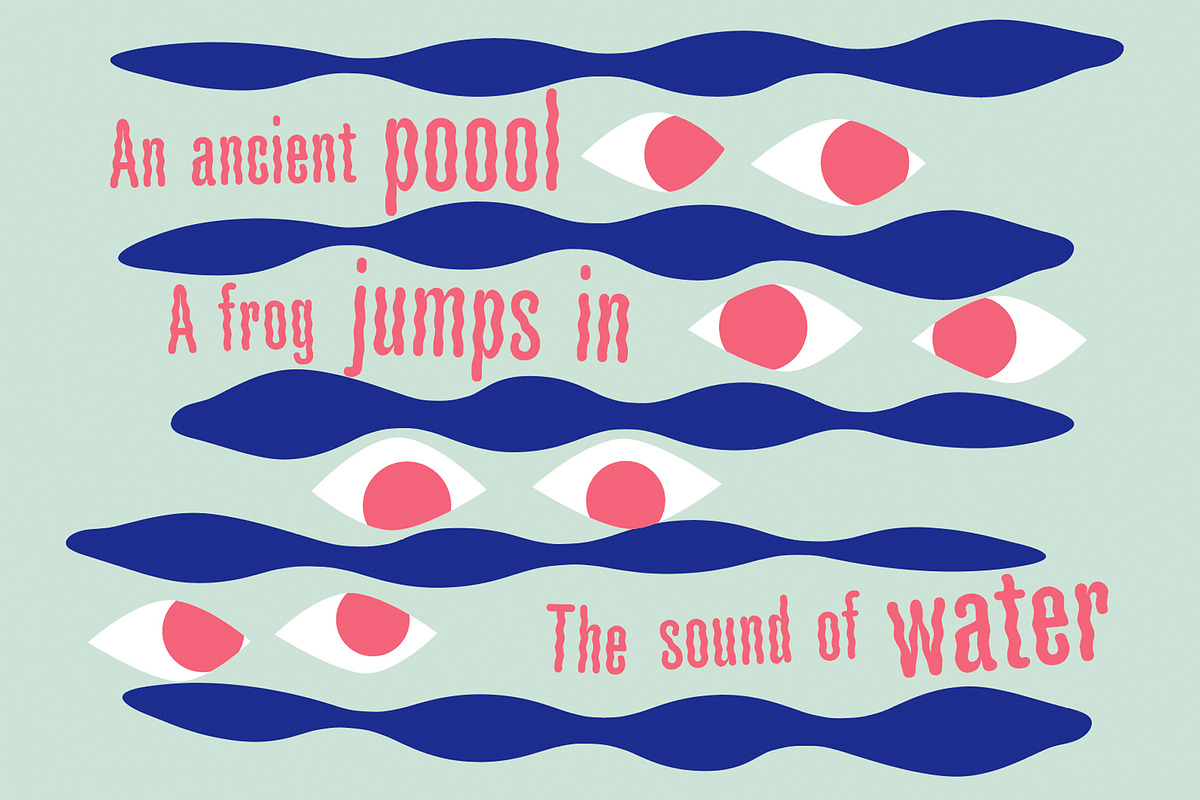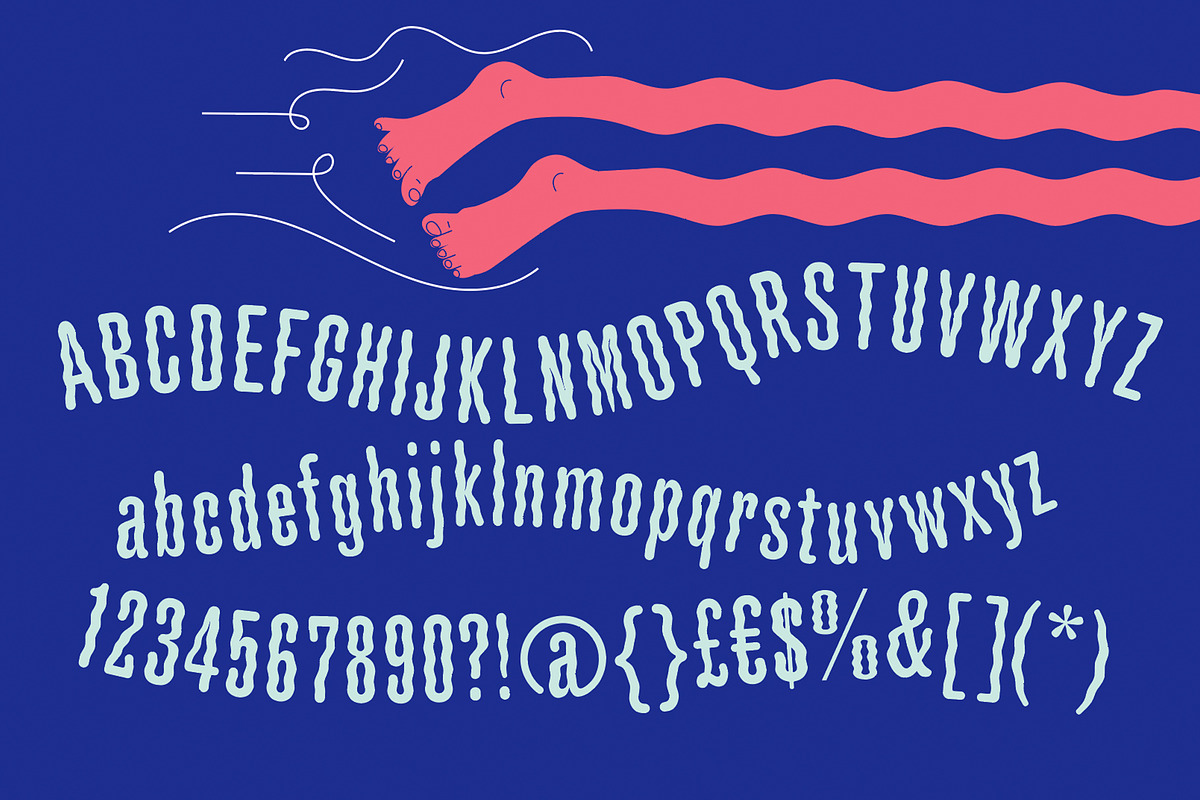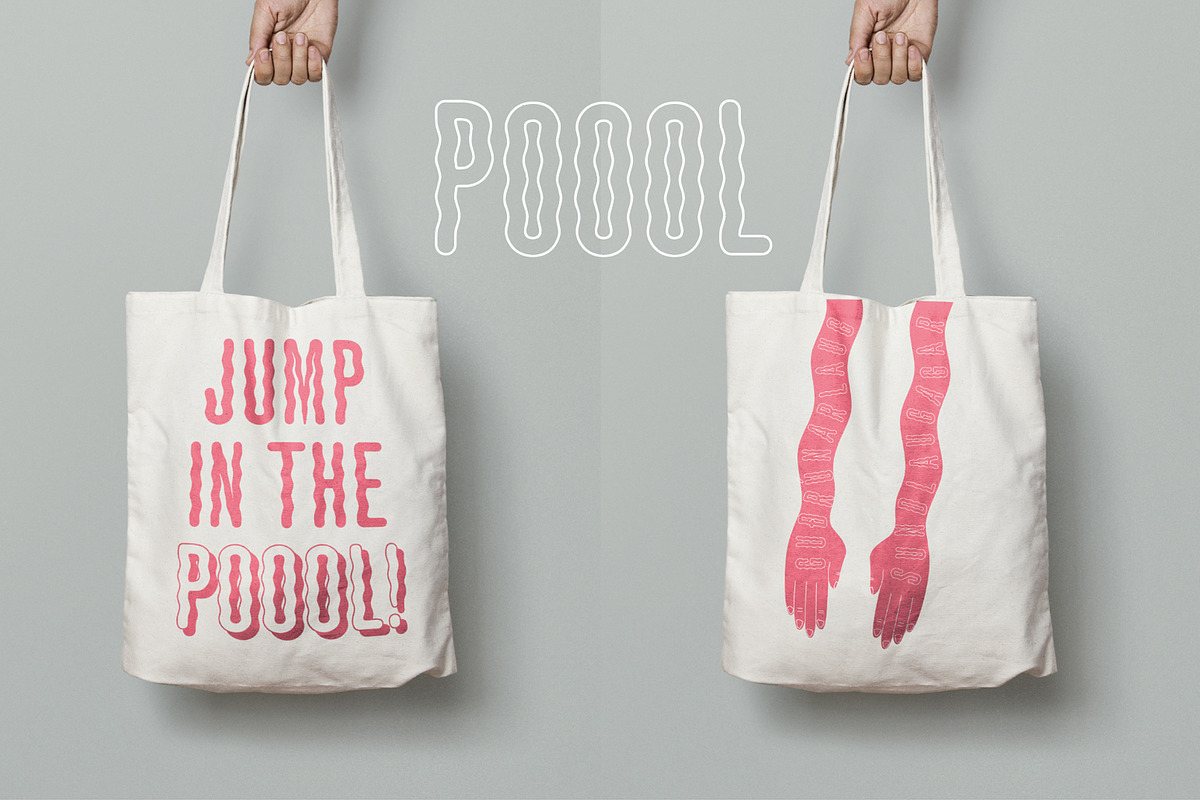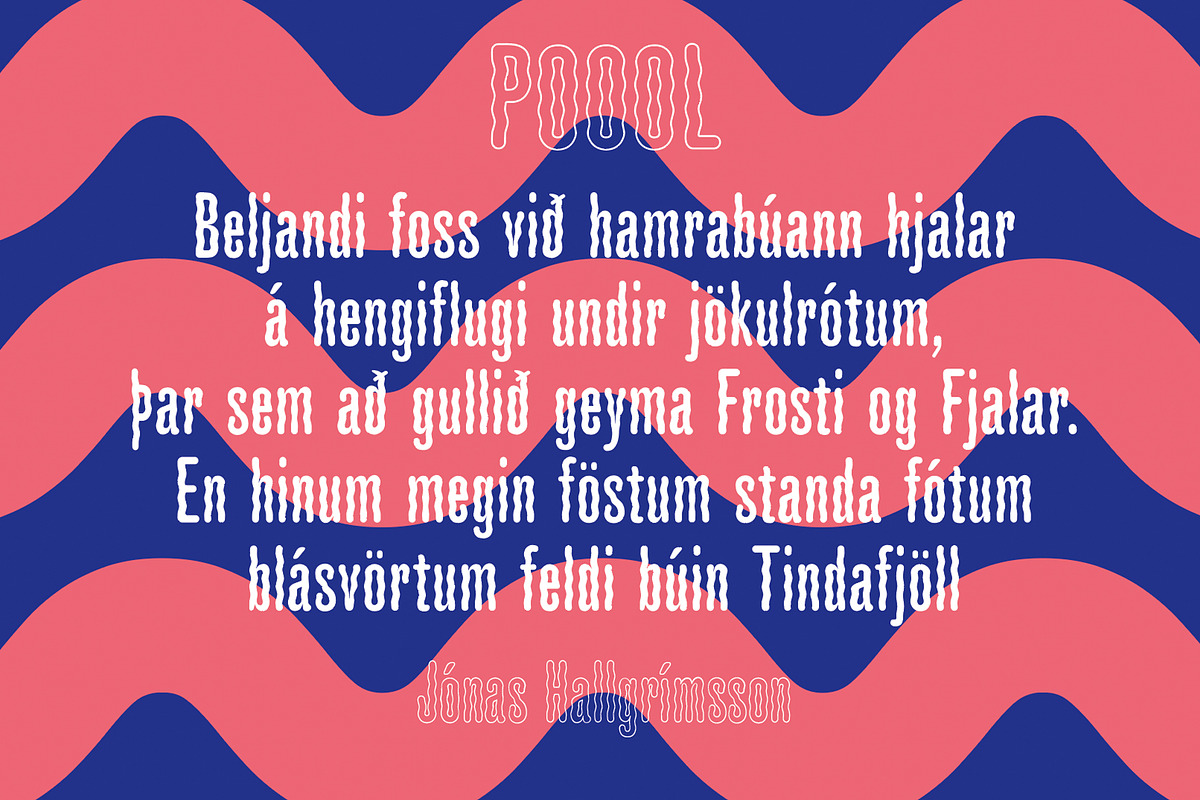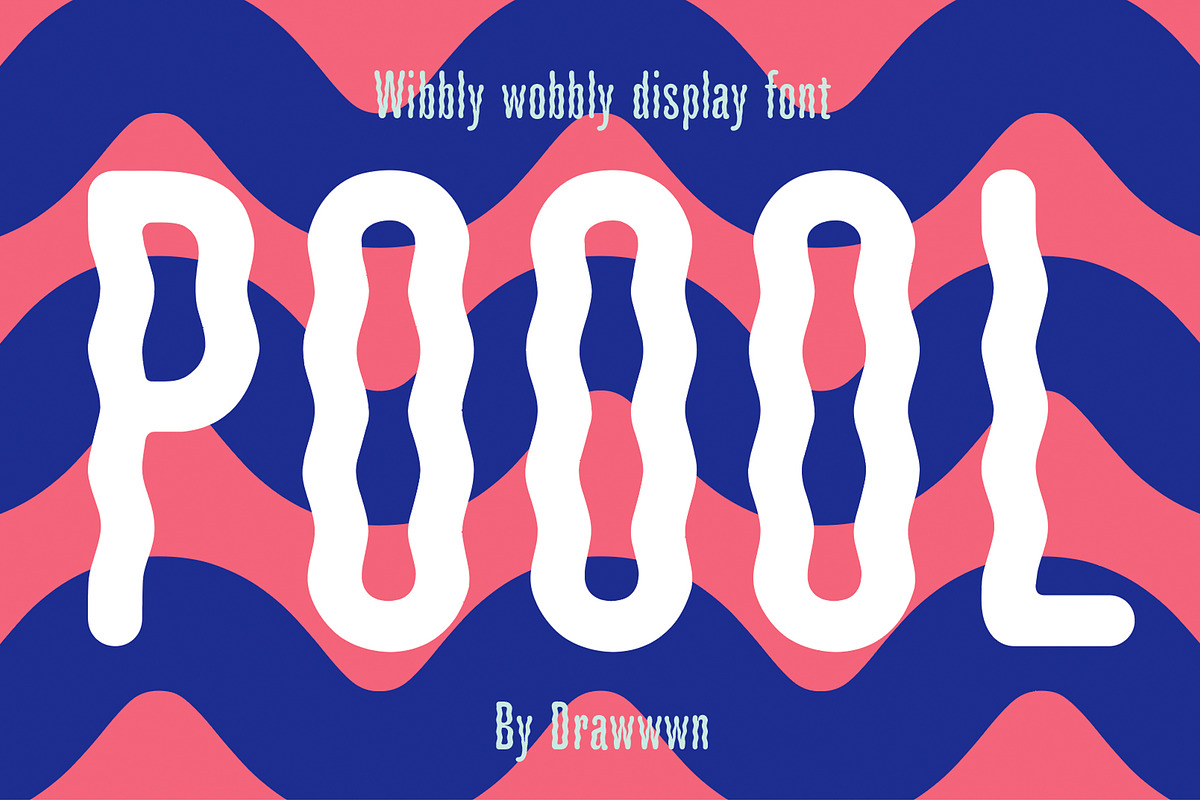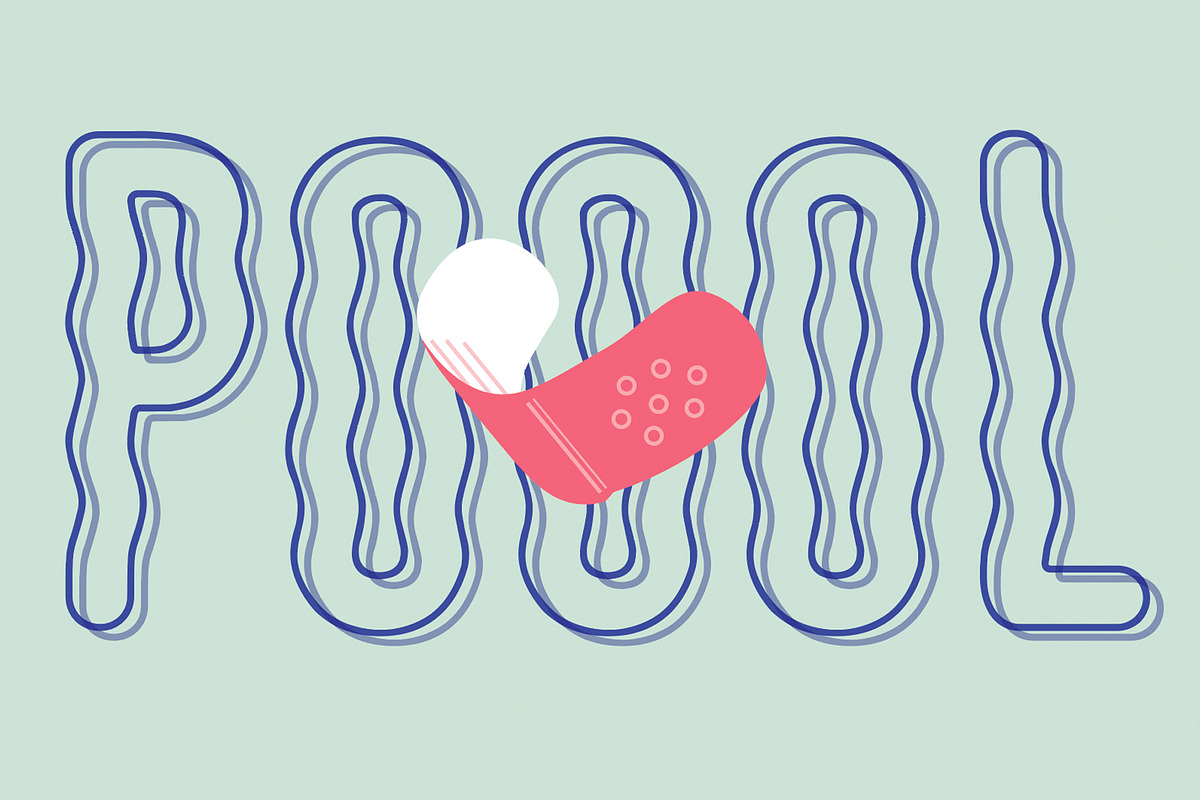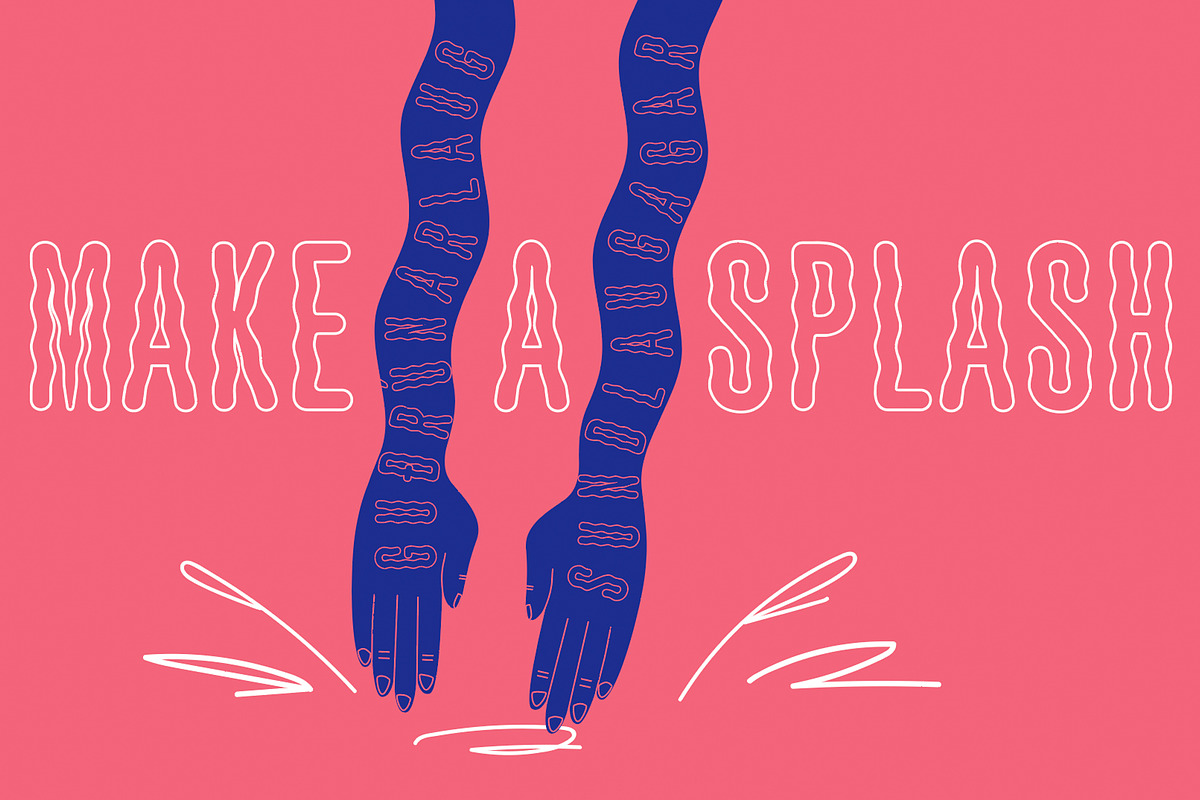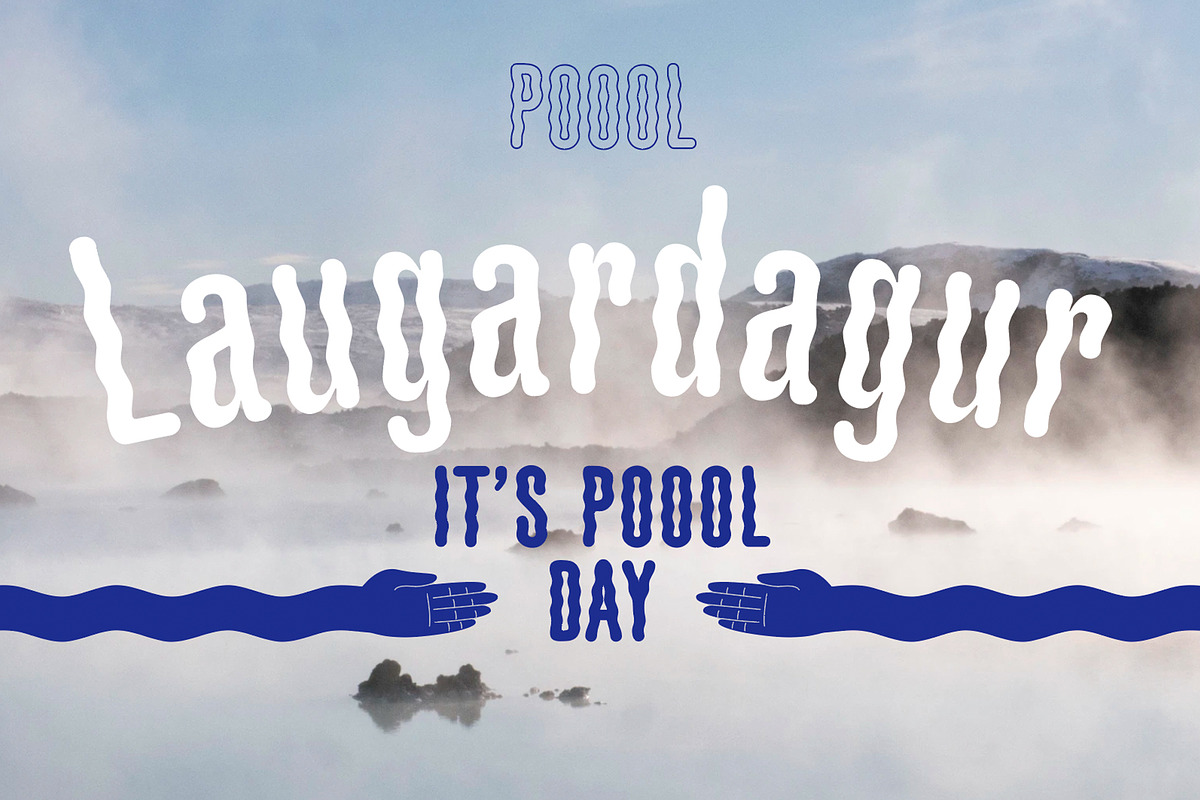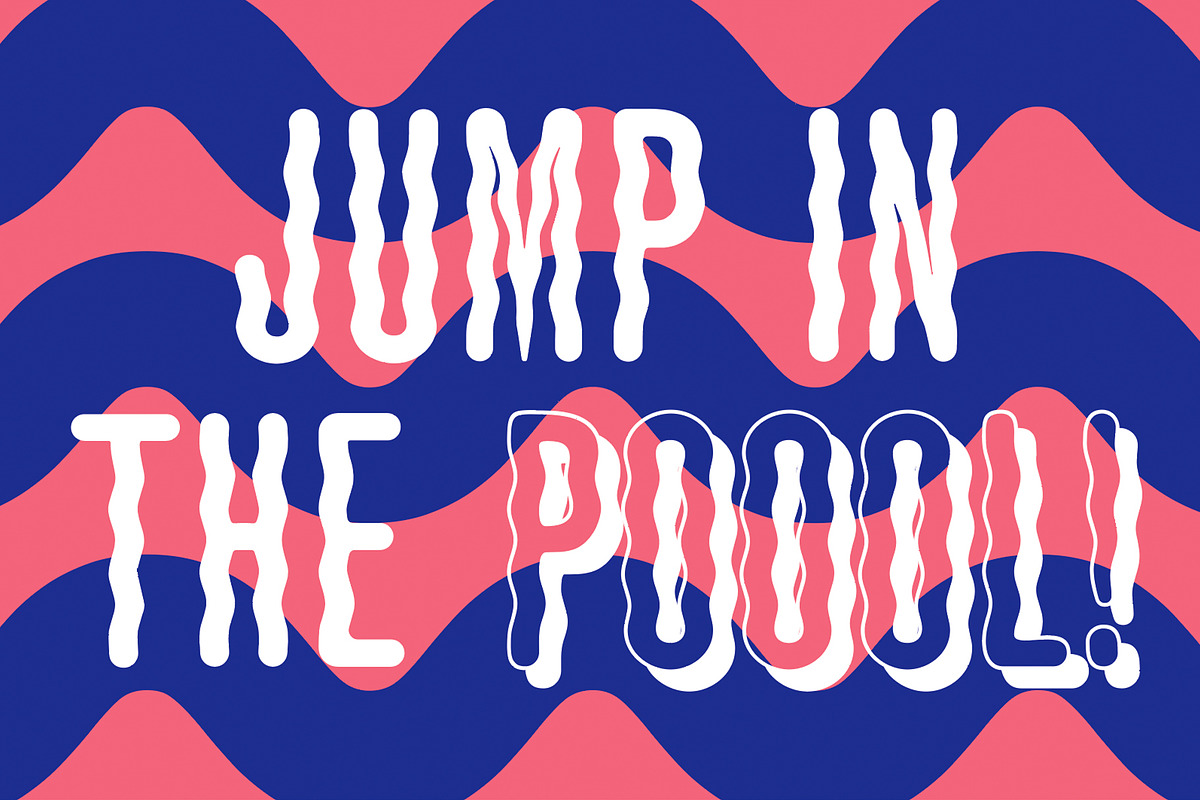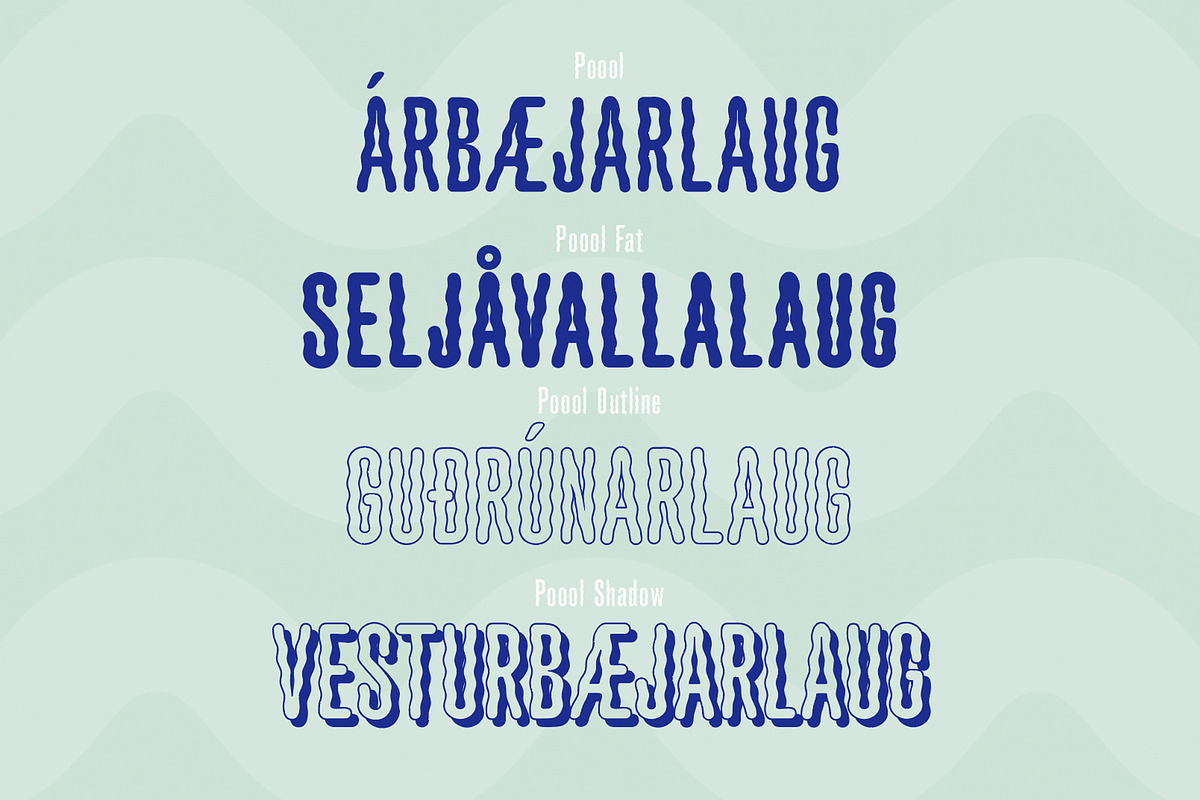
Poool is a fun and wobbly display font. Perfect for pasta branding or spa posters, sweet factories or samba classes. It comes in four styles to help you express your inner Ibiza villa vibes.
Time to jump into the Poool!